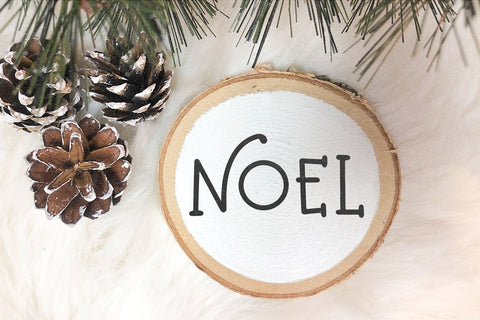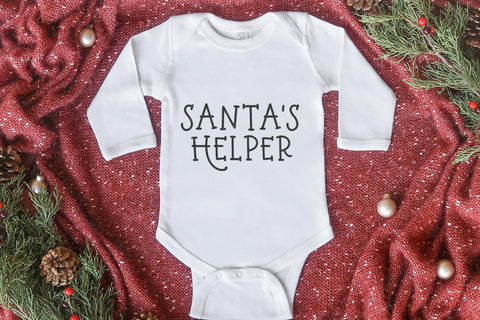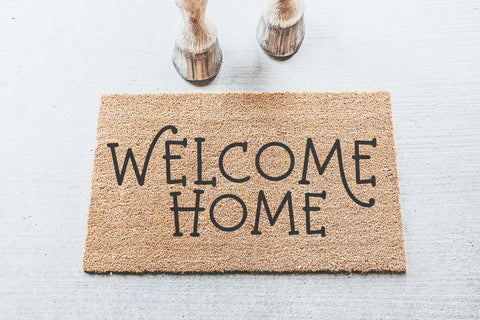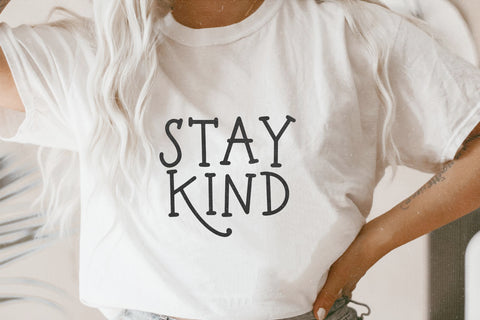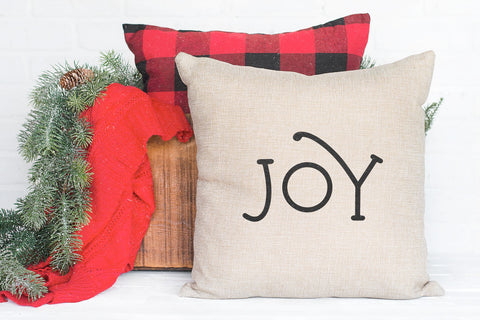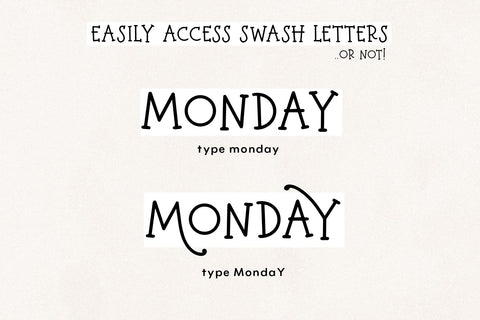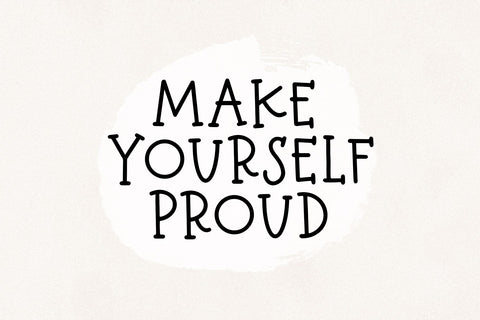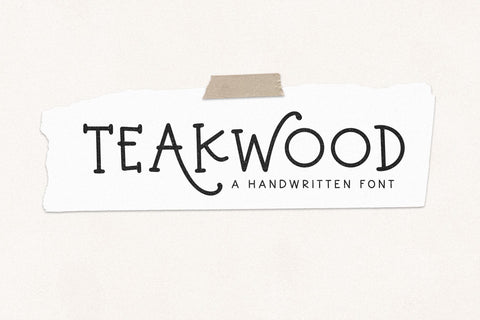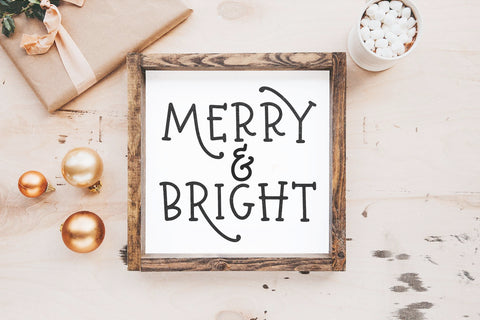
Teakwood - Handwritten Farmhouse Font
Teakwood is a handwritten font perfect for all of your crafting projects!
Use this font for farmhouse decor, Christmas signs, shirts, branding, logos, Cricut projects, stickers, procreate and more!